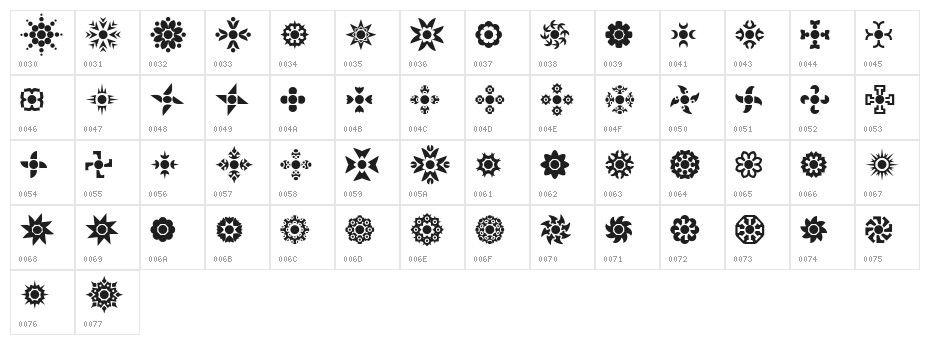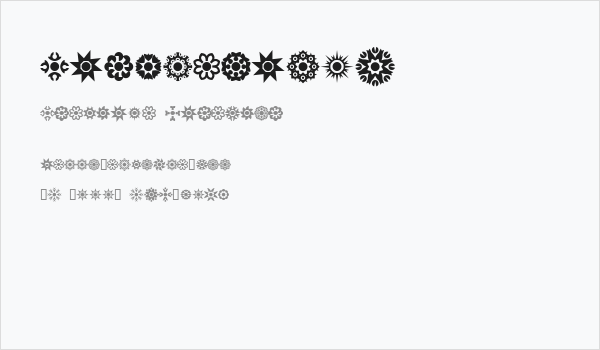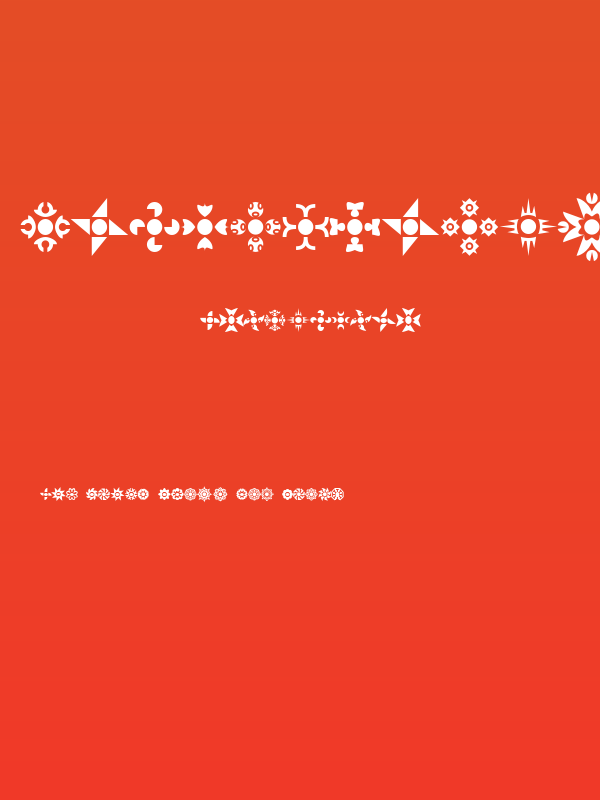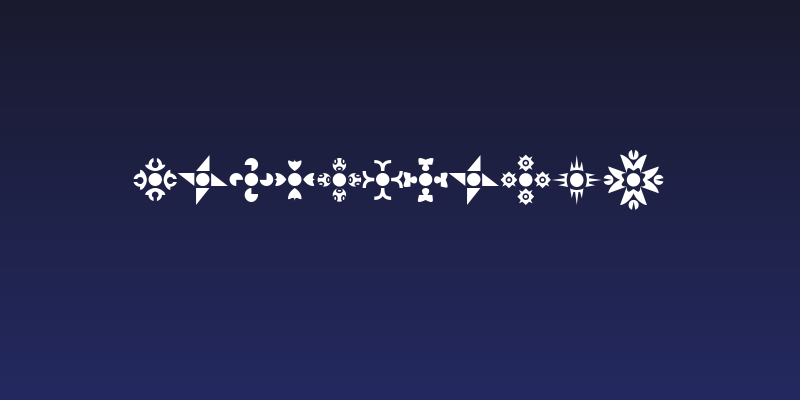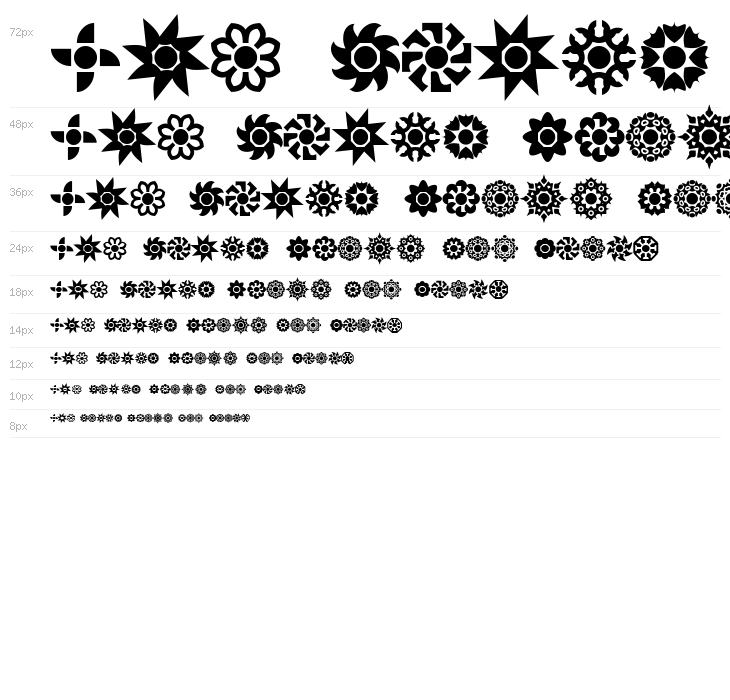
Cirkledingz Font
Cirkledingz Description
A decorative dingbat font featuring a variety of circular, floral, geometric, and abstract motifs, all rendered in bold black shapes with high contrast and intricate detailing.
| Overall Style | Decorative, Ornamental |
| Use Case | Decorative elements, Borders, Accents |
| Proposed Projects | Borders, dividers, decorative accents, scrapbooking, invitations, posters, digital art, and pattern design. |